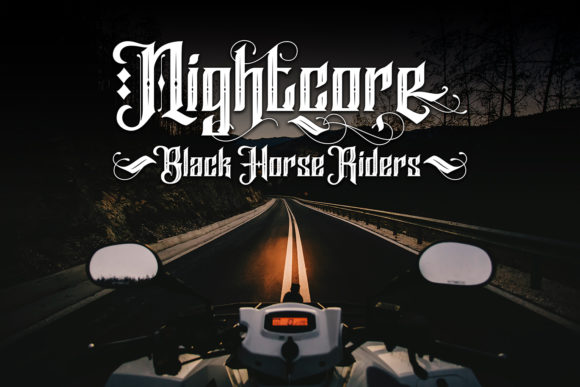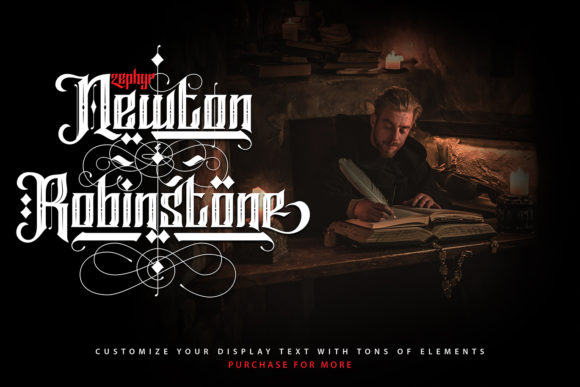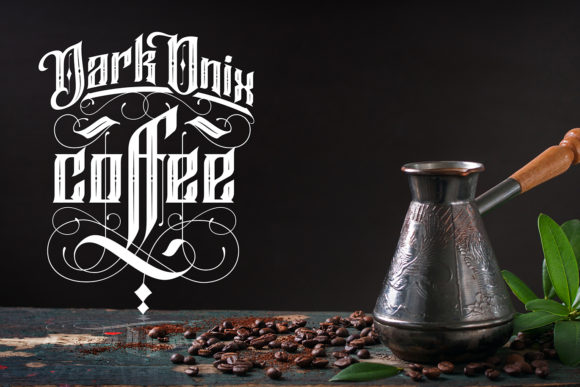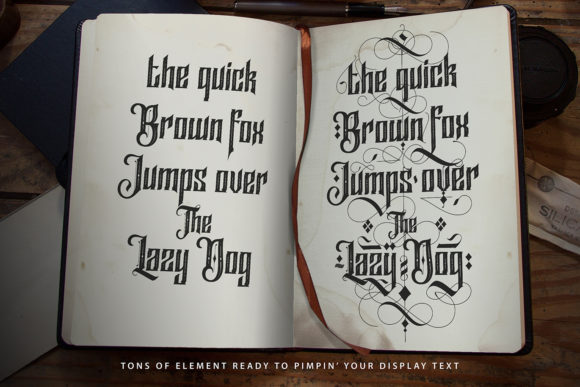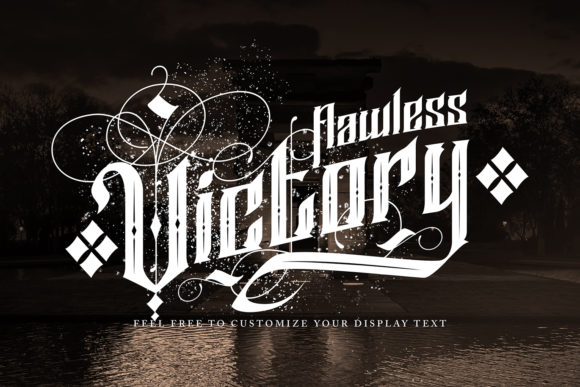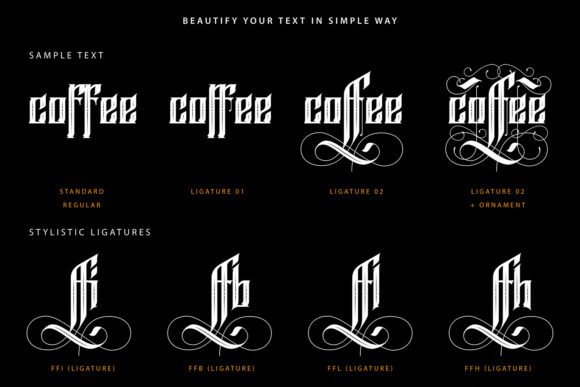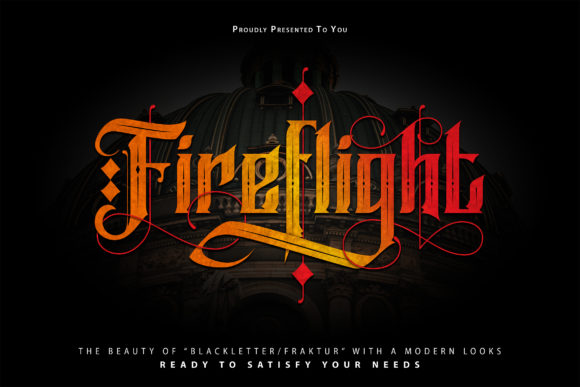
Unleash the Power of Fireflight Font: Elevate Your Designs with a Bold and Original Blackletter Style
Are you tired of using the same old fonts in your designs? Do you want to add a touch of uniqueness and boldness to your creations? Look no further than Fireflight Font, a game-changing blackletter font that’s about to take your designs to the next level. With its distinctive style and versatility, Fireflight is the perfect choice for designers and crafters looking to make a statement.
What is Fireflight Font?
Fireflight Font is a bold and original blackletter font that’s designed to turn any design idea into an eye-catcher. Its unique style is characterized by intricate details, sharp lines, and a sense of movement that’s sure to grab attention. Whether you’re working on a logo, poster, or social media graphic, Fireflight Font is the perfect choice for adding a touch of drama and flair.
Key Features of Fireflight Font
• Bold and Original Style: Fireflight Font boasts a bold and original style that’s unlike anything you’ve seen before. Its unique blackletter design is sure to make your designs stand out from the crowd.
• Versatile: Fireflight Font is incredibly versatile, making it perfect for a wide range of design projects, from logos and posters to social media graphics and more.
• Easy to Use: Despite its intricate design, Fireflight Font is surprisingly easy to use, even for those with limited design experience.
• High-Quality: Fireflight Font is a high-quality font that’s designed to deliver exceptional results, even at large sizes.
Who is Fireflight Font for?
Fireflight Font is perfect for designers, crafters, and anyone looking to add a touch of boldness and uniqueness to their designs. Whether you’re a:
• Graphic Designer: Looking for a font that will make your designs stand out, Fireflight Font is the perfect choice for creating stunning logos, posters, and social media graphics.
• Crafter: Working on a craft project, such as a handmade card or scrapbook page, Fireflight Font is a great way to add a touch of personality and flair.
• Small Business Owner: Looking for a font that will help your brand stand out, Fireflight Font is a great choice for creating a bold and memorable brand identity.
How to Use Fireflight Font
Using Fireflight Font is easy, even if you’re new to design. Here are a few tips to get you started:
• Pair with a Simple Font: For maximum impact, pair Fireflight Font with a simple font, such as a sans-serif font, to create a striking contrast.
• Experiment with Colors: Fireflight Font looks great in a range of colors, so don’t be afraid to experiment and find the perfect hue for your design.
• Use as a Title Font: Fireflight Font is perfect for use as a title font, adding a touch of drama and flair to your designs.
In conclusion, Fireflight Font is a bold and original blackletter font that’s sure to take your designs to the next level. With its unique style, versatility, and ease of use, Fireflight Font is the perfect choice for designers and crafters looking to make a statement. So why wait? Download Fireflight Font today and start creating stunning designs that will leave a lasting impression.
Whether you’re a seasoned designer or just starting out, Fireflight Font is a must-have addition to your font collection. So go ahead, unleash the power of Fireflight Font, and watch your designs come to life in a whole new way.